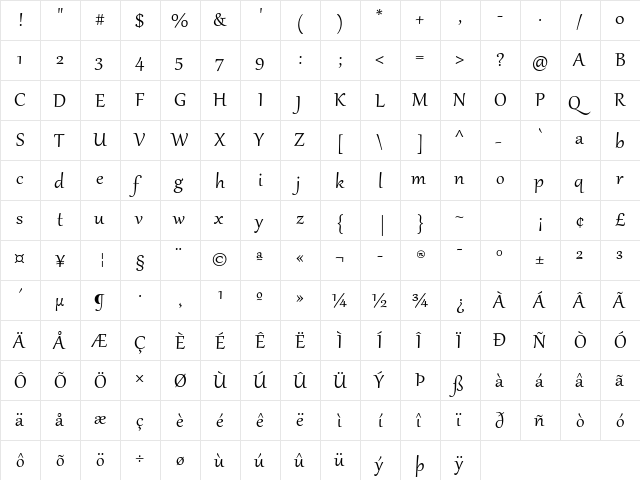
Gabriola Regular Font Preview
Gabriola Regular
Gabriola Regular Font Details
| Foundry | Microsoft Corporation |
| Designer | John Hudson |
Design Context for Gabriola Typeface
Gabriola takes a measured approach to typography — its balanced proportions and neutral character make it a reliable workhorse for both digital and print work.